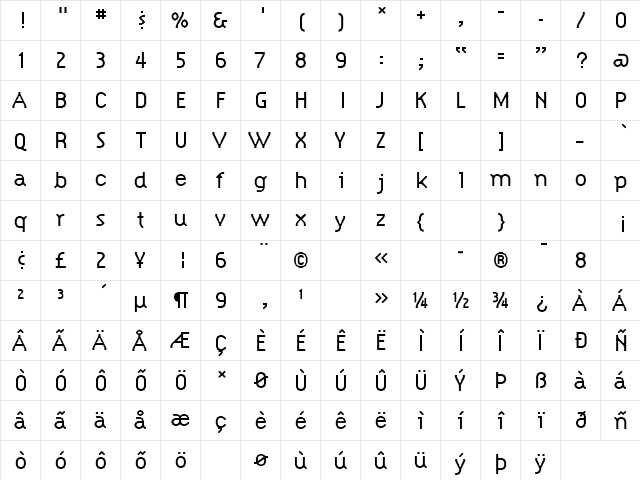
Citizen-Light Light
Design Context for Citizen-Light Typeface
Citizen-Light offers clean, dependable letterforms without strong stylistic allegiance, making it a practical choice for designers who need flexibility. Its slender proportions lend an understated elegance to any composition.
Pro Tip: Pair Citizen-Light with a font of contrasting weight or personality to build a more expressive typographic hierarchy.